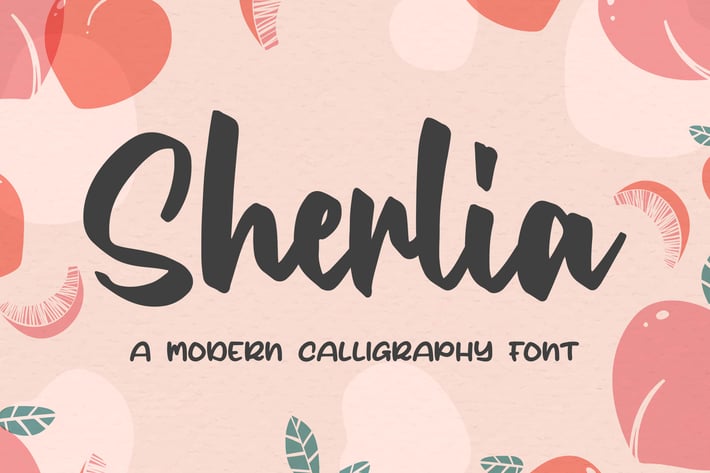
Sherlia - a Modern Calligraphy Font
Introducing of our new product the name is Sherlia a Modern Calligraphy Font. Sherlia inspired by Modern calligraphy style this font is a fun theme very good for poster, food menu, wedding invitation, logotype and etc